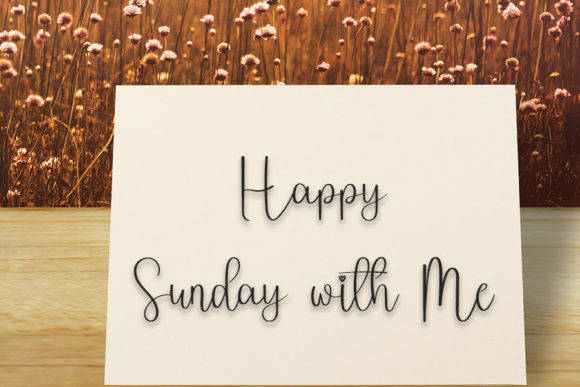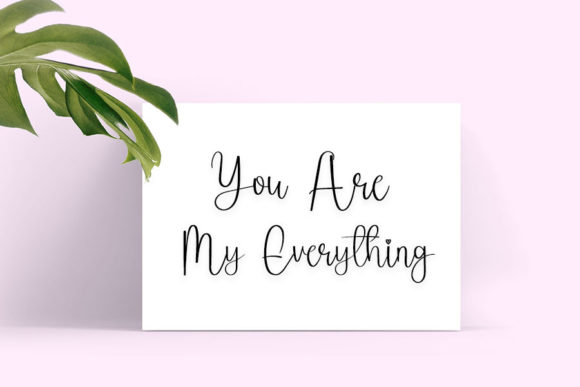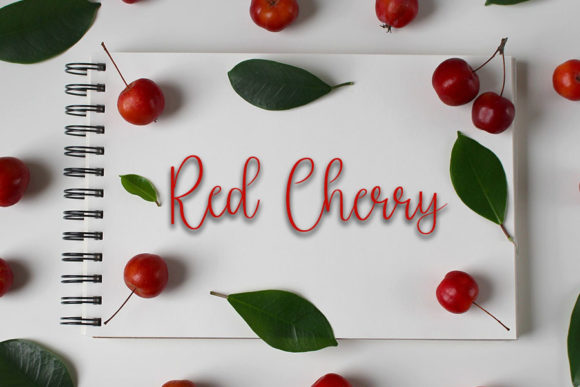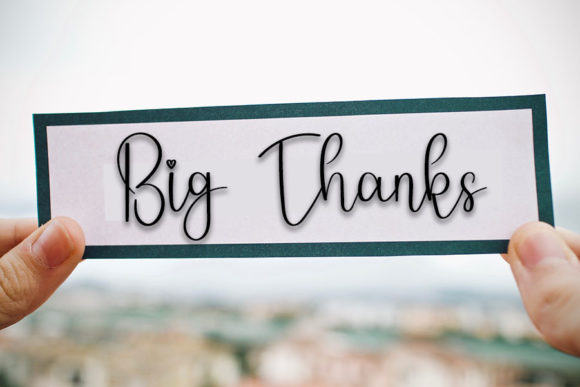
Monalisa Font
About Monalisa Font
Monalisa is a lovely and delicate script handwritten font that exudes elegance and class. This font was particularly crafted for those who need a beautiful and refreshing look to their designs.